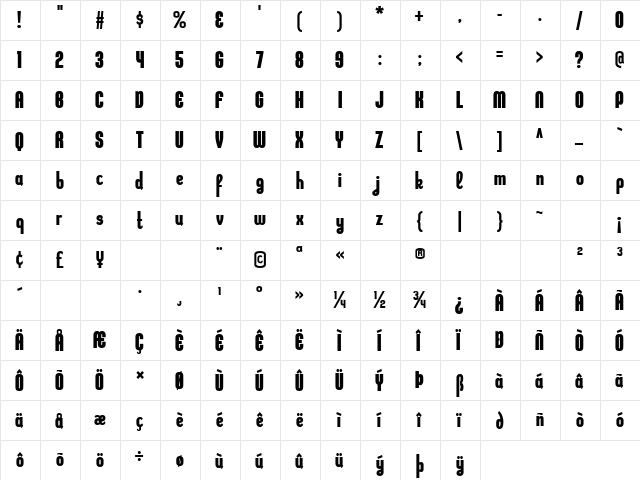
Kleptocracy Condensed Bold
Design Context for Kleptocracy Condensed Typeface
Kleptocracy Condensed is a composed and adaptable typeface that performs quietly and consistently across a wide range of design contexts. Its bold stroke weight gives it real presence on the page. The condensed width makes it efficient for tight spaces without sacrificing legibility.